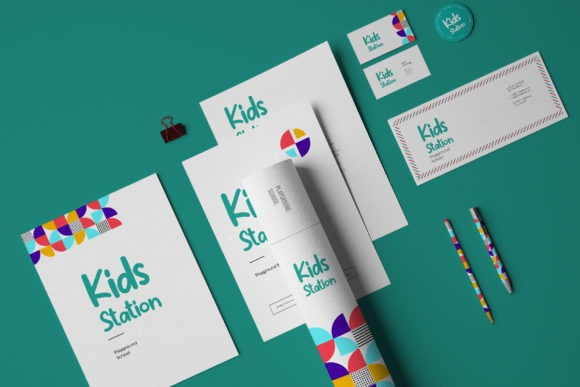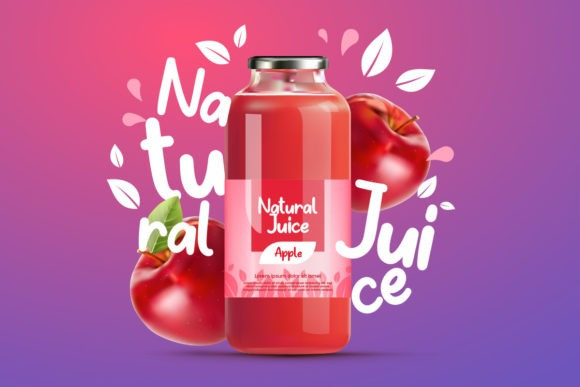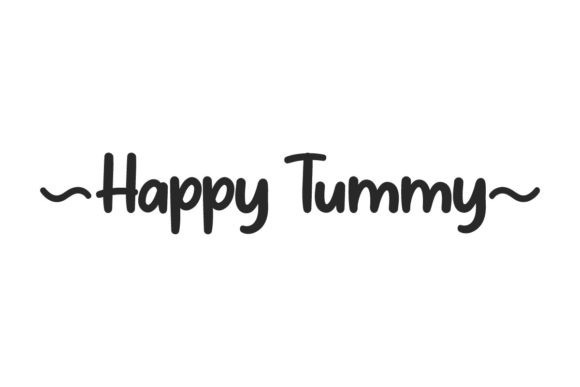
Happy Tummy Font
Happy Tummy Font is a handwritten font that was inspired by a kids’ menu from a fast-food restaurant. It works great on any kind of project you have in mind. You can add it to branding, logos, stationery, wedding invitations, signage, flyers, video titles, etc. Its playful and cartoonish style makes it perfect to be used on houseware, cosmetics, events, art, cartoons, cafés, movies, school projects, etc.